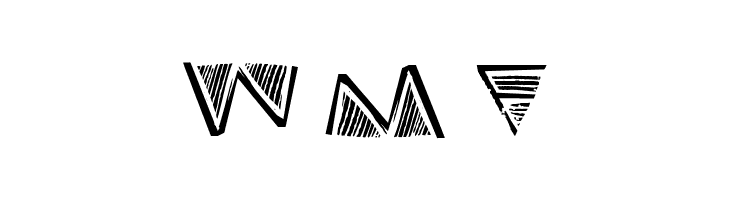
Playhouse Font
Font by
NicholasJudy456
A playful, bold font with irregular, jagged edges and a hand-cut appearance.
MarkerFinePoint-Plain Regular Font
A playful, handwritten-style font with consistent stroke thickness and a casual feel.
Vollkorn Italic Font
Copyright 2017 The Vollkorn Project Authors (https://github.com/FAlthausen/Vollkorn-Typeface)
An elegant serif font with an italic slant and moderate contrast, perfect for classic and sophisticated designs.
Bewilder Thick BRK Font
A bold, slanted font with elongated characters and a modern style.
Fogle Hunter Regular Font
Font by HENRIavecunK. Personal-use only. For commercial use please contact owner.
A rustic, hand-drawn font with uneven edges and a natural feel.
Brennan Font
Font by Mario Arturo - marioarturo.com. Personal-use only. For commercial use please contact owner. Contact the owner for a donation.
A bold, slab serif font with a vintage yet modern appeal.
Chesterfield Regular Font
A bold, geometric font with a condensed and modern style.
Photoshoot Regular Font